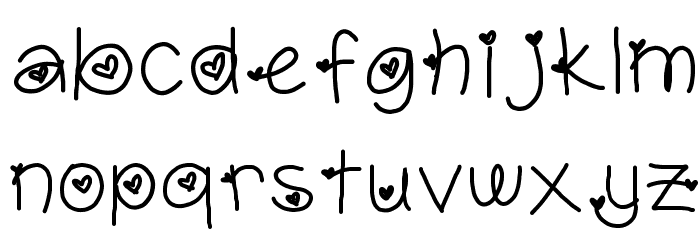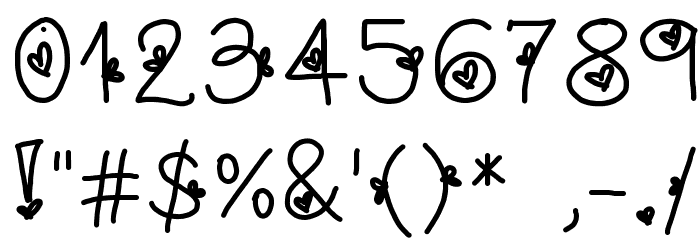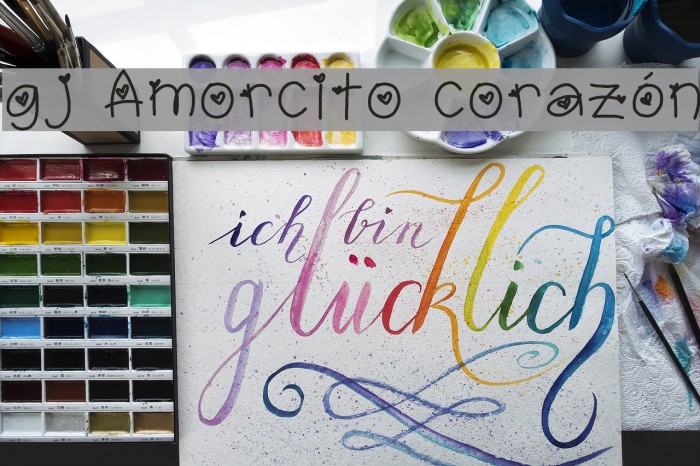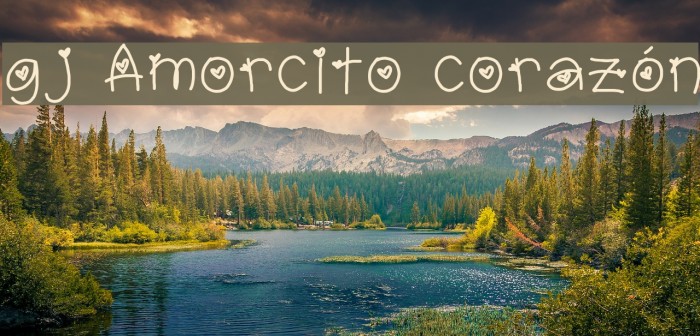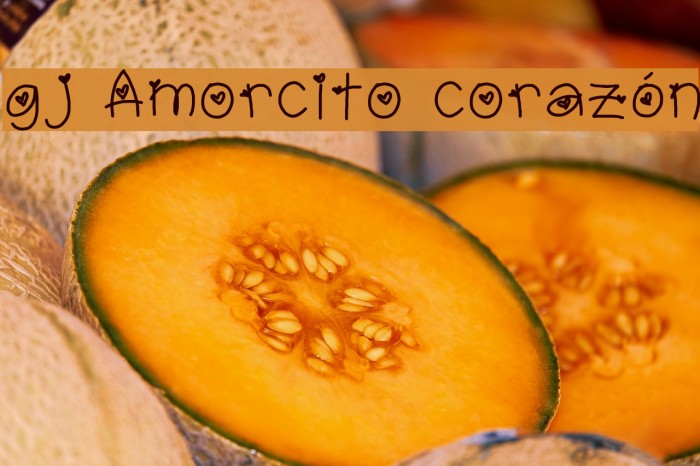
gj Amorcito corazón Font
This playful and whimsical font features charming heart motifs integrated into each character, creating a lively and romantic feel. The letters are hand-drawn with a casual, friendly style that exudes warmth and affection. The strokes are smooth and rounded, giving the font a soft and approachable appearance. Each character is unique, with hearts cleverly placed in various parts of the letters, adding a touch of creativity and fun. The numerals and special characters maintain the same delightful theme, ensuring consistency across all text elements.
A playful, heart-themed font with a whimsical, hand-drawn style.
- Proposed Projects: Ideal for Valentine's Day cards, wedding invitations, love-themed posters, and playful branding projects.
- Overall Style: Whimsical
- Use Case: Headlines, Logos, Invitations